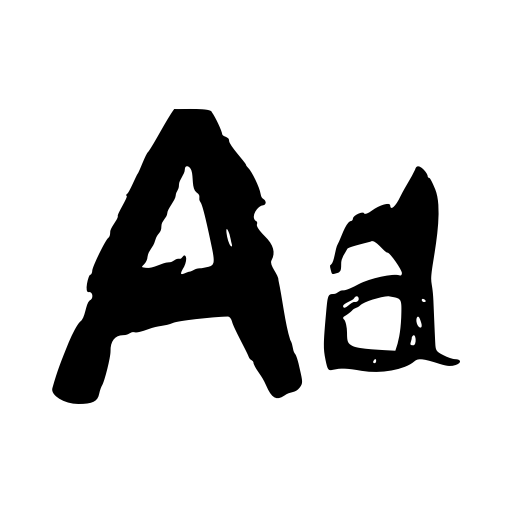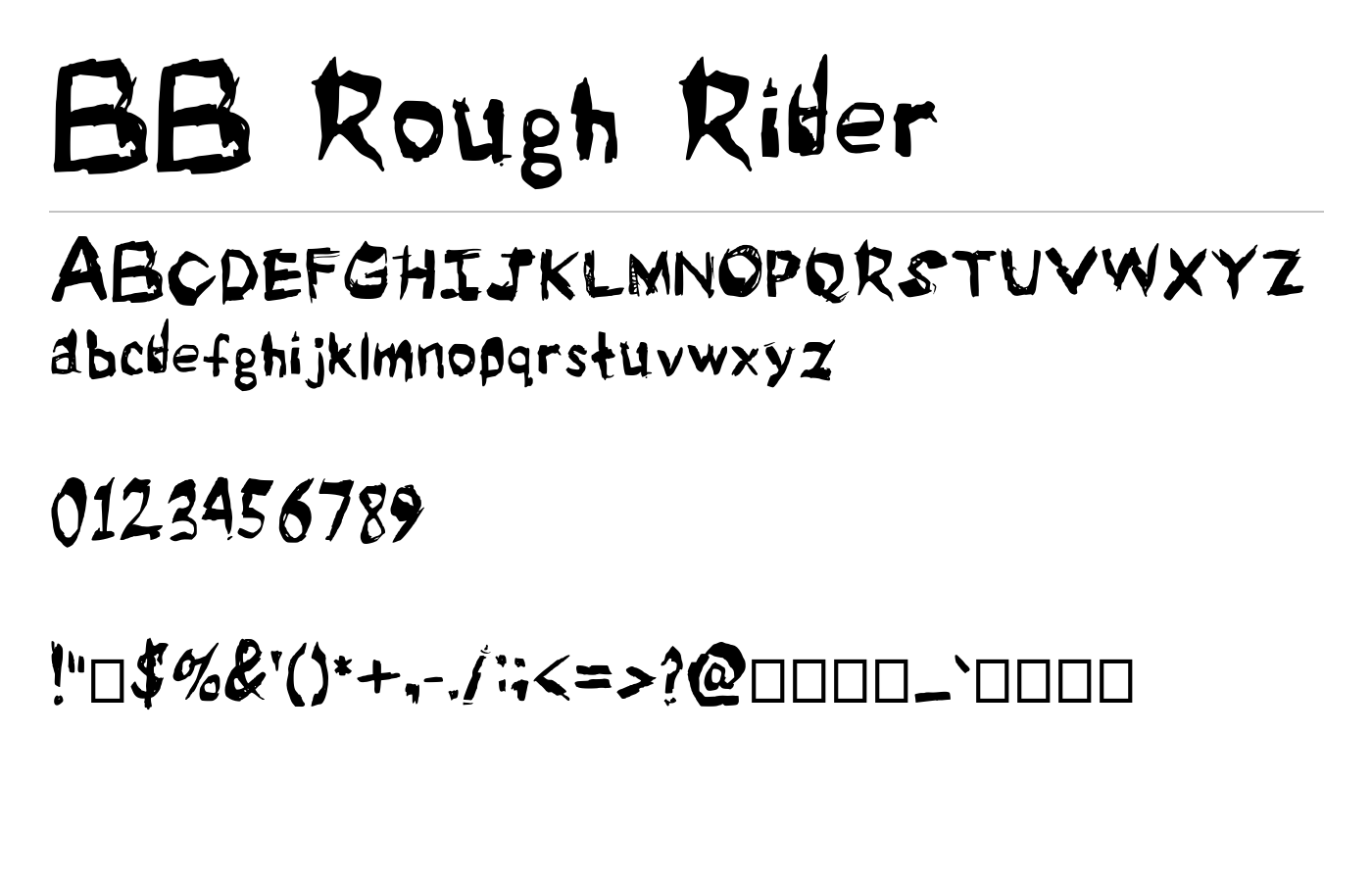
BB Rough Rider is a bold, rough-edged display font with a hand-drawn, distressed feel that gives it a wild, adventurous personality. Its uneven strokes and irregular shapes create an energetic, rugged look, making it ideal for designs that want to convey a sense of boldness, rebellion, or rustic charm. This font works best for posters, logos, and branding projects that aim for a strong, untamed style rather than formal or polished text.
BB Rough Rider Font
About BB Rough Rider Font